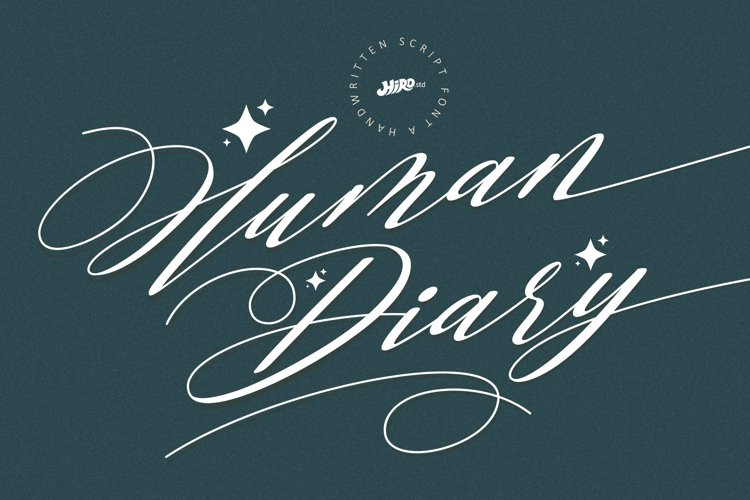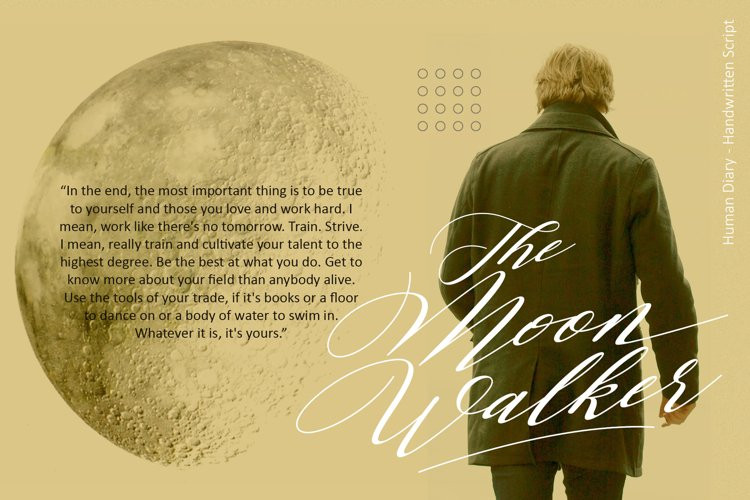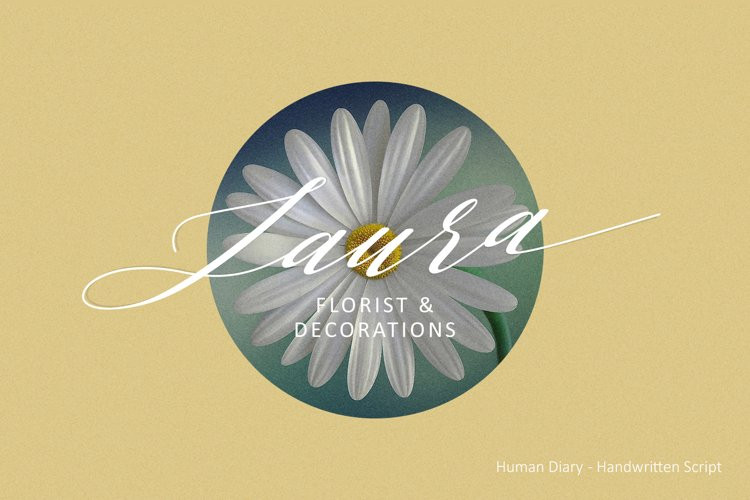
Human Diary Font
Human Diary FontHuman Diary is a handwritten script font.
This font describes about casual, luxury, elegant, stylish, dynamic, easy to use and will bring a good harmony when the letters are connected and paired each other.